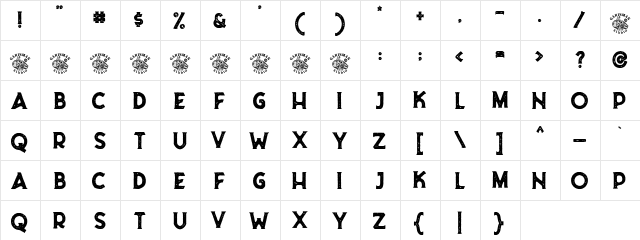
Riborn Regular
| Foundry | Garisman Studio |
| Designer | Risman Ginarwan |
Design Context for Riborn Typeface
Riborn offers clean, dependable letterforms without strong stylistic allegiance, making it a practical choice for designers who need flexibility.